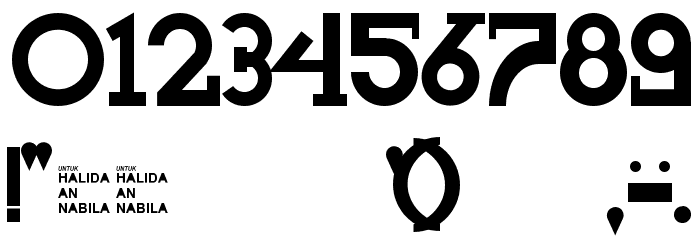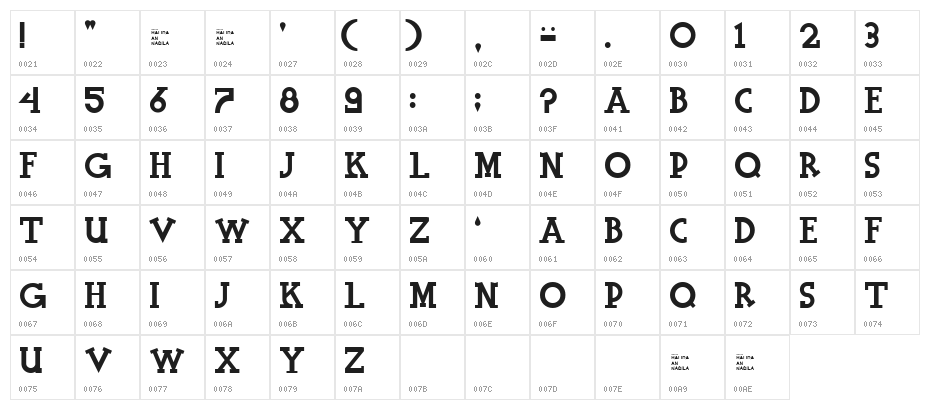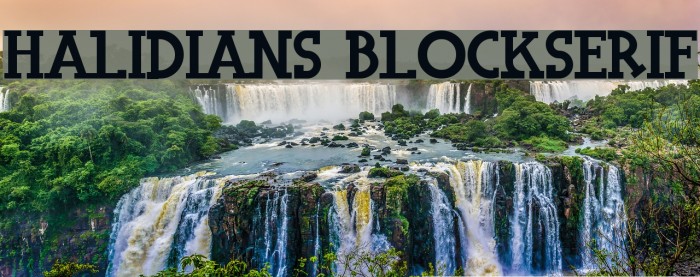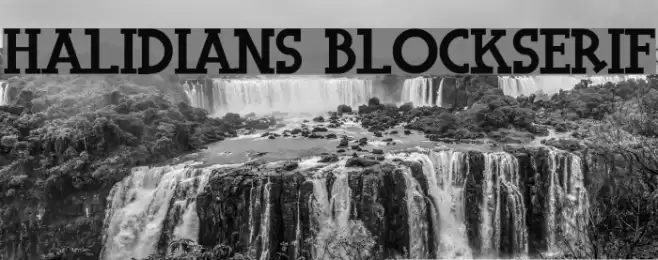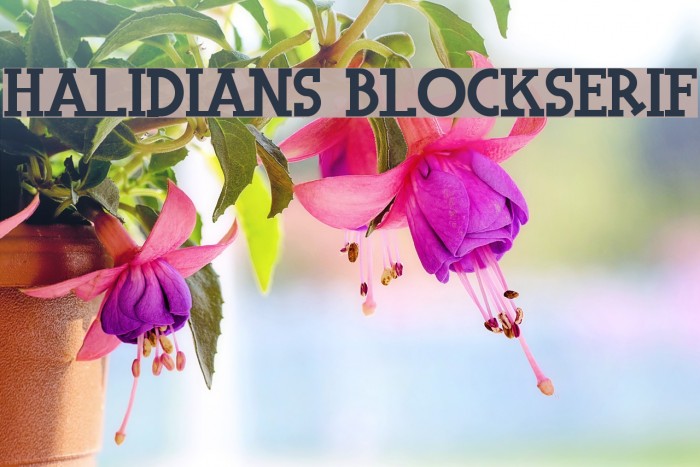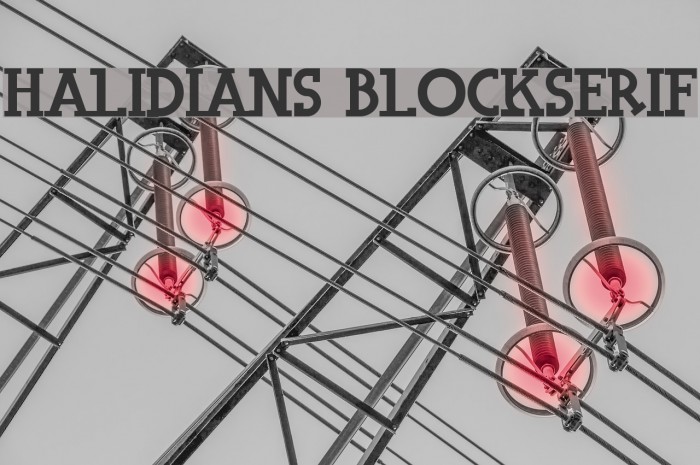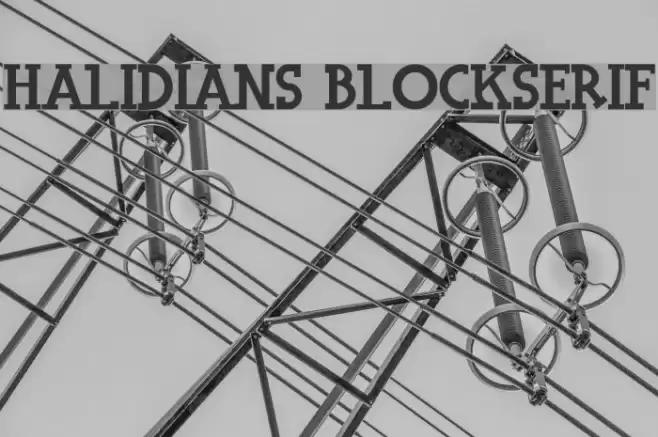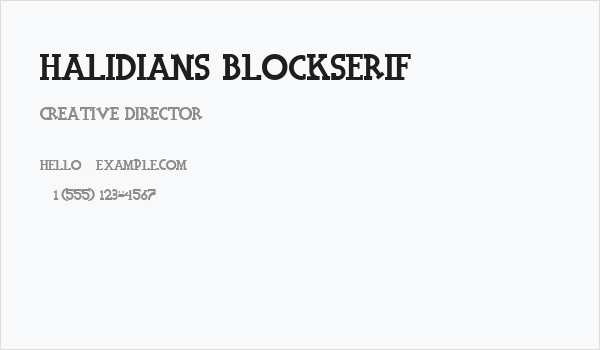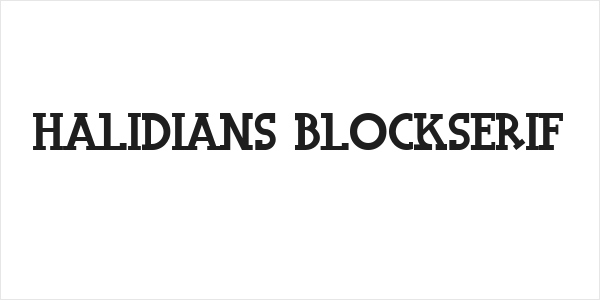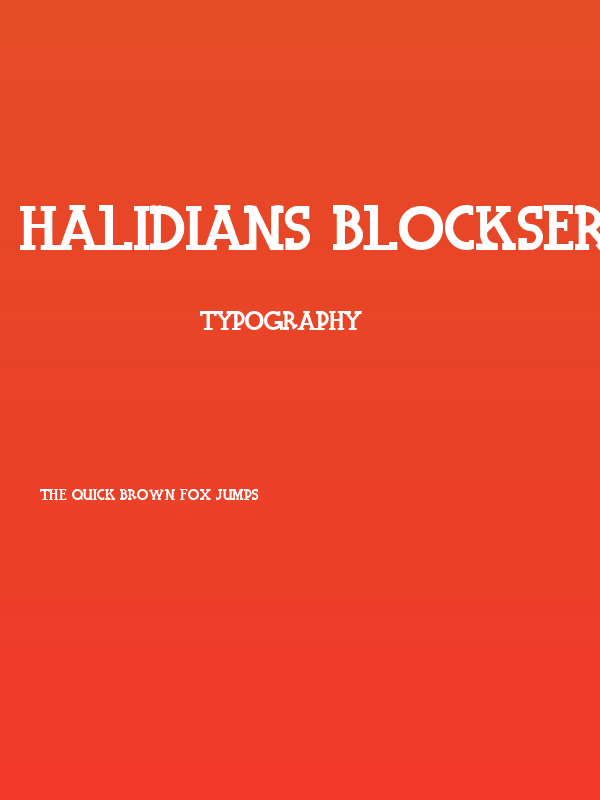
Halidians Blockserif Font
Halidians Blockserif Description
This font features a bold and commanding presence with its block serif style. The characters are robust and sturdy, with thick strokes and pronounced serifs that give it a strong, authoritative look. The uppercase letters are particularly striking, with a geometric precision that adds to the font's overall impact. The numerals are equally bold, maintaining the same weight and style as the letters, ensuring consistency throughout. The special characters are uniquely designed, adding a touch of creativity while still aligning with the font's overall aesthetic. This font is ideal for making a statement, whether in headlines, logos, or branding materials.
| Proposed Projects | Ideal for headlines, logos, branding, posters, and any project requiring a strong visual impact. |